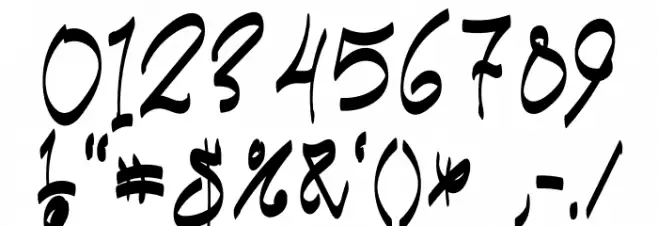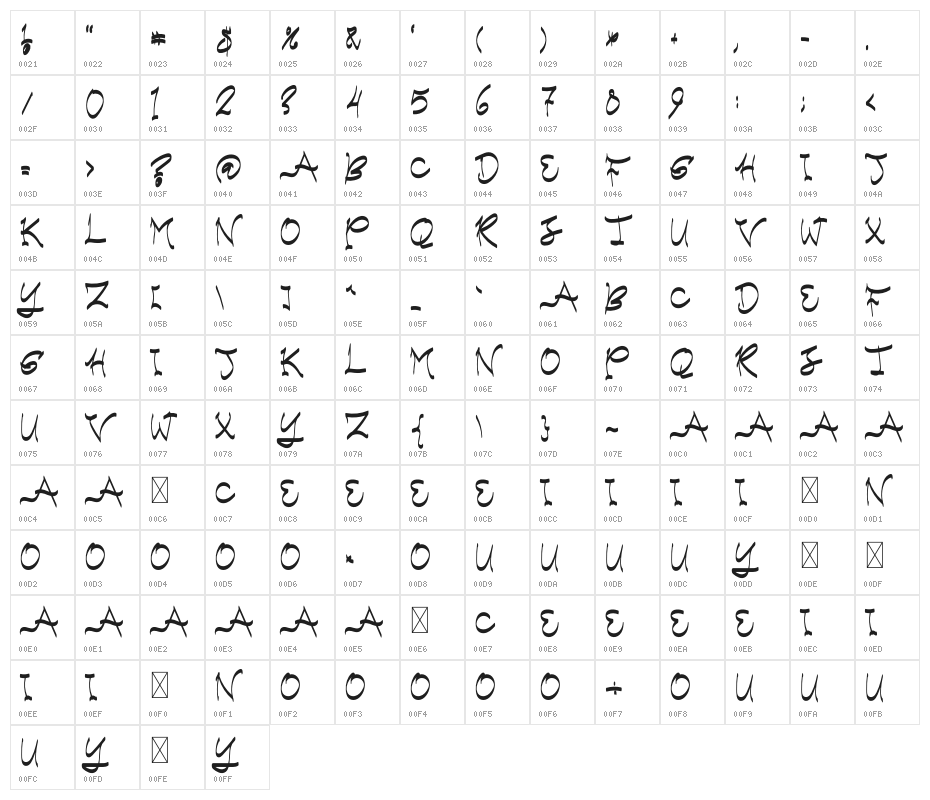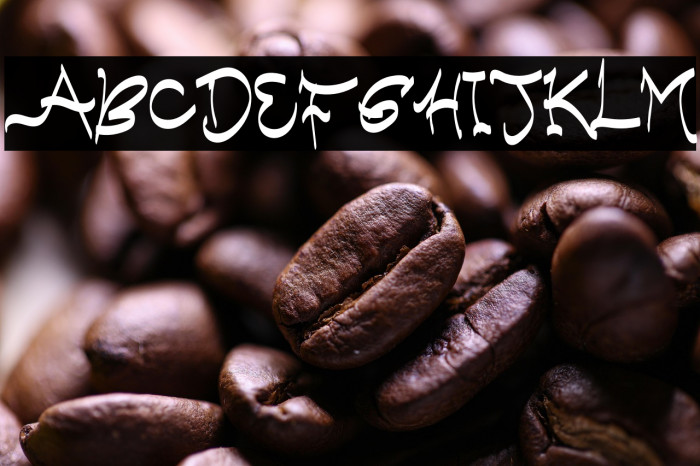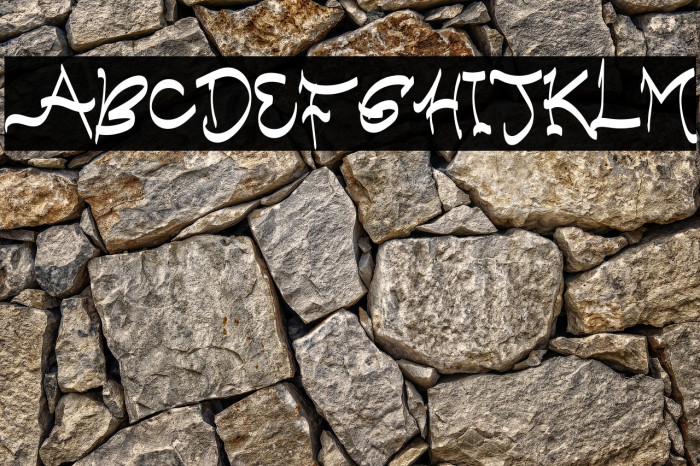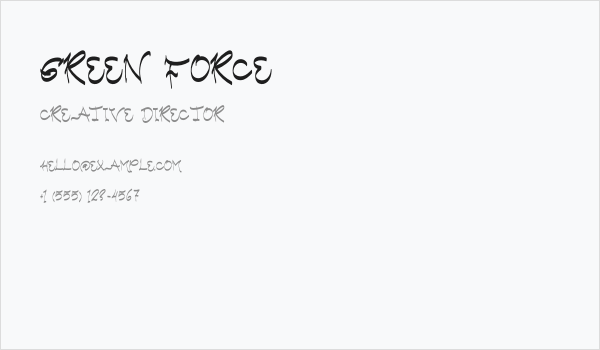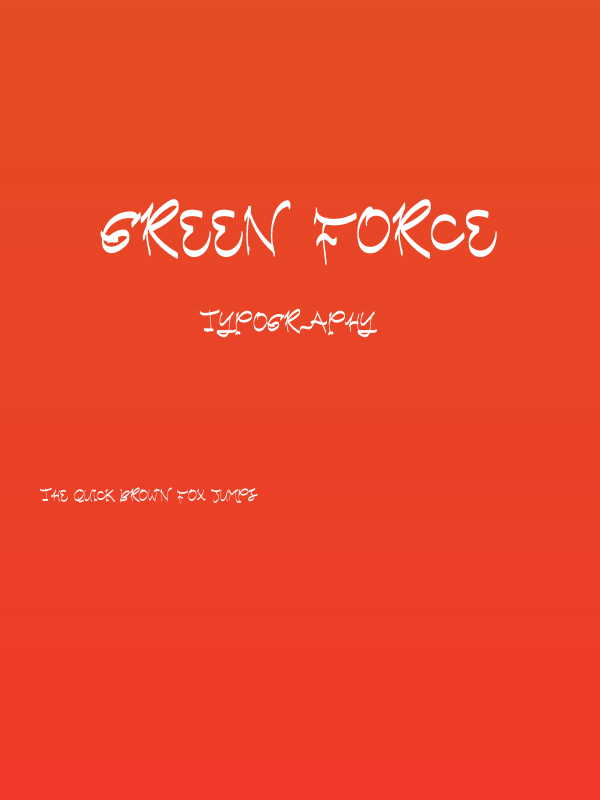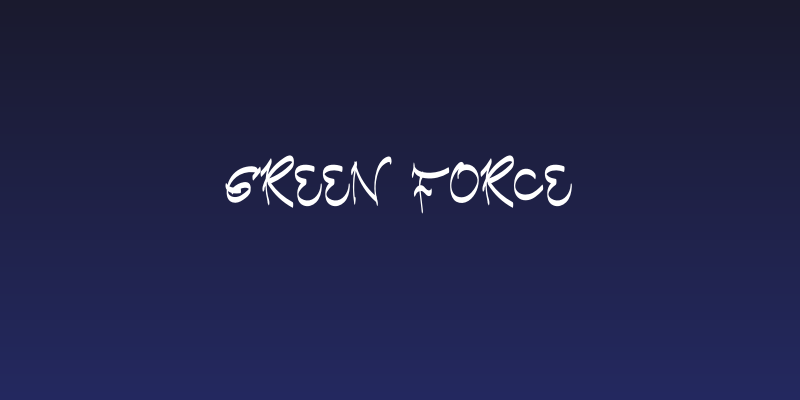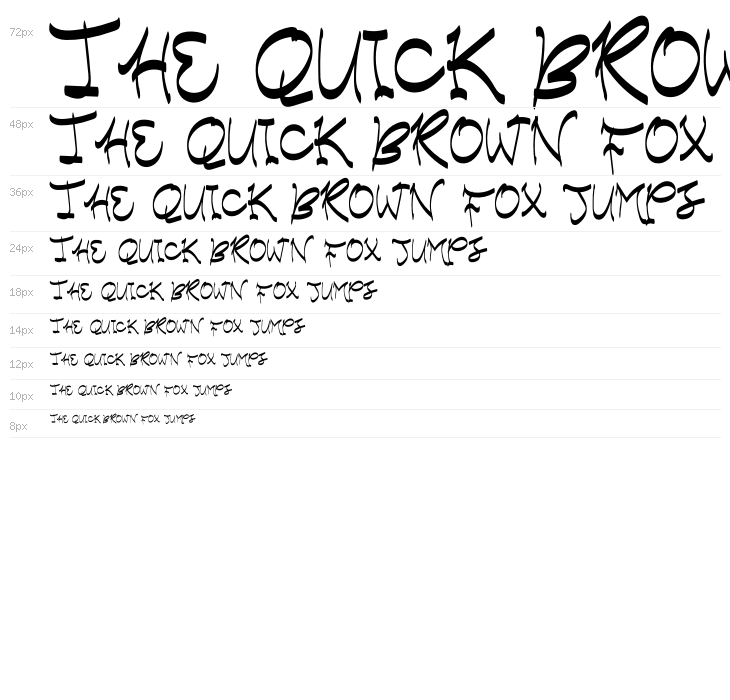
Green Force Font
Green Force Description
This font exhibits a dynamic and energetic style, characterized by its bold, flowing strokes and slightly irregular shapes. The letters have a handwritten, calligraphic feel, with a sense of movement and flair. The uppercase and lowercase letters maintain a consistent style, while the numerals and special characters complement the overall aesthetic. The font's design is both artistic and legible, making it suitable for creative projects that require a touch of personality and expressiveness.
A bold, dynamic font with a handwritten, calligraphic style from Uncategorized fonts.
- Font: Green Force
- Proposed Projects: Ideal for branding, posters, invitations, and any project needing a creative, expressive touch.